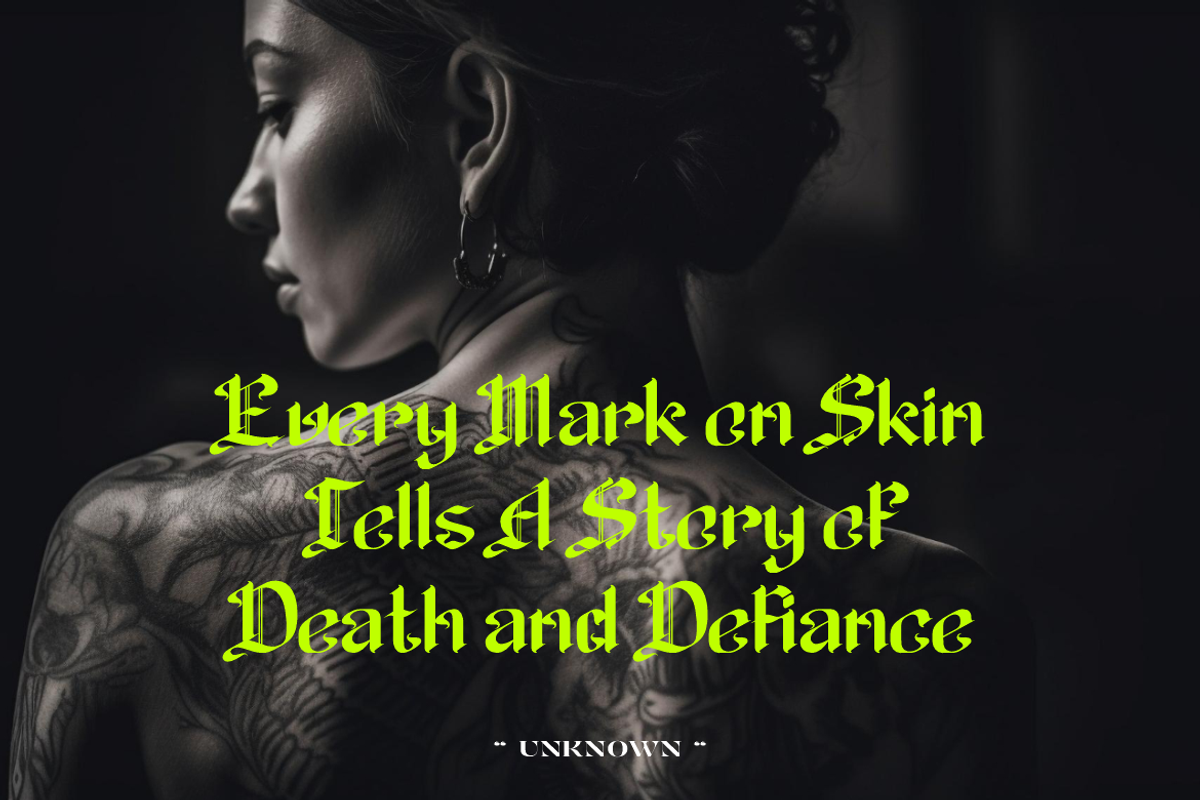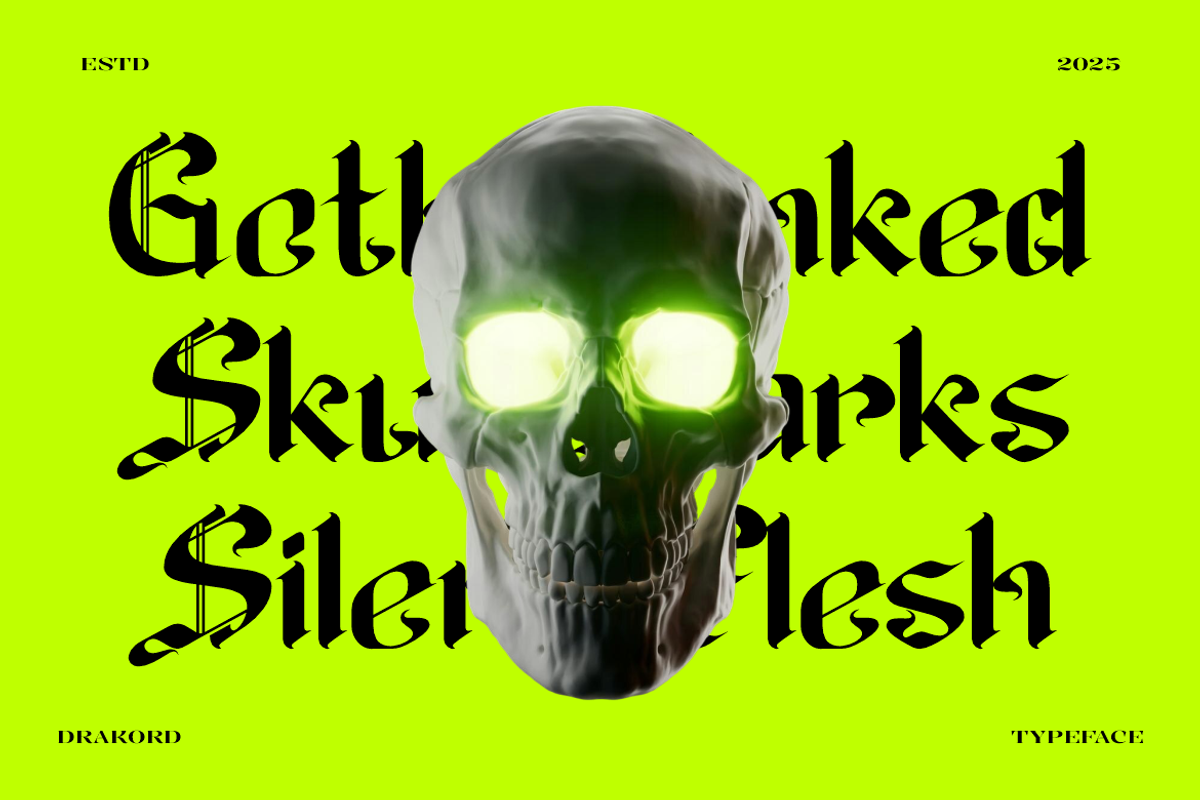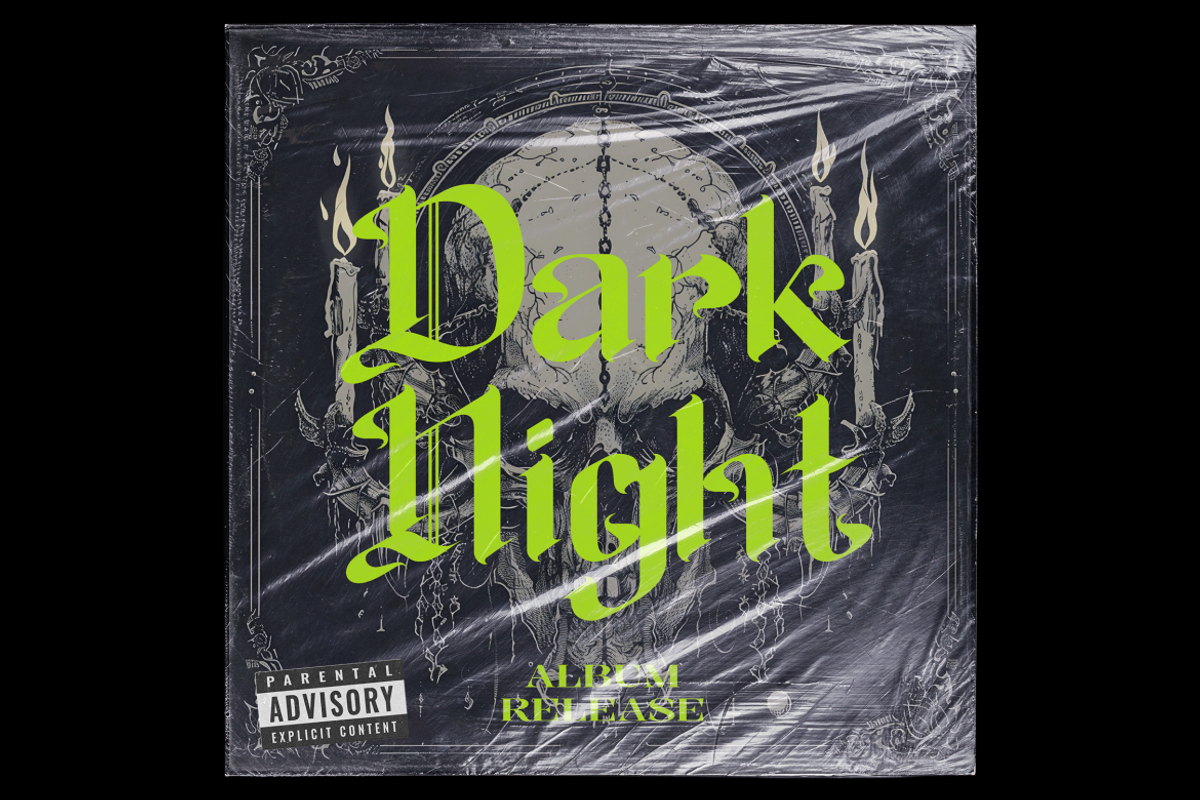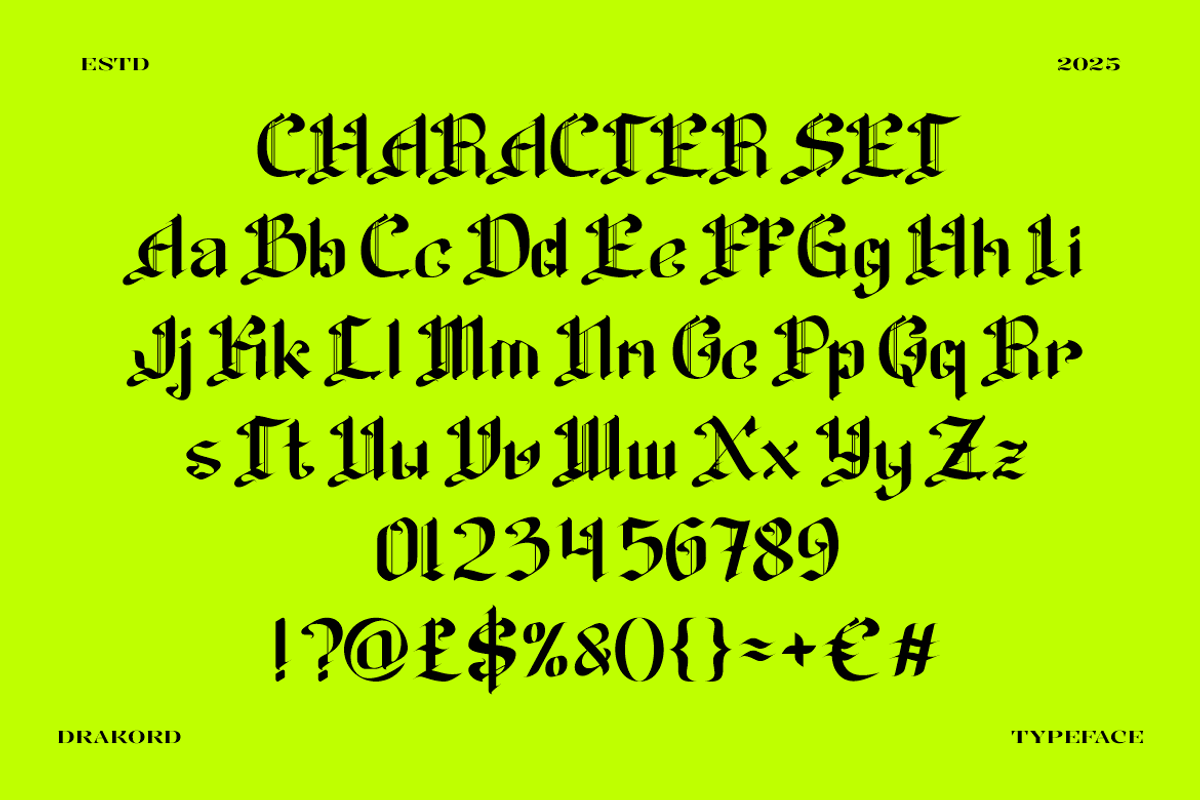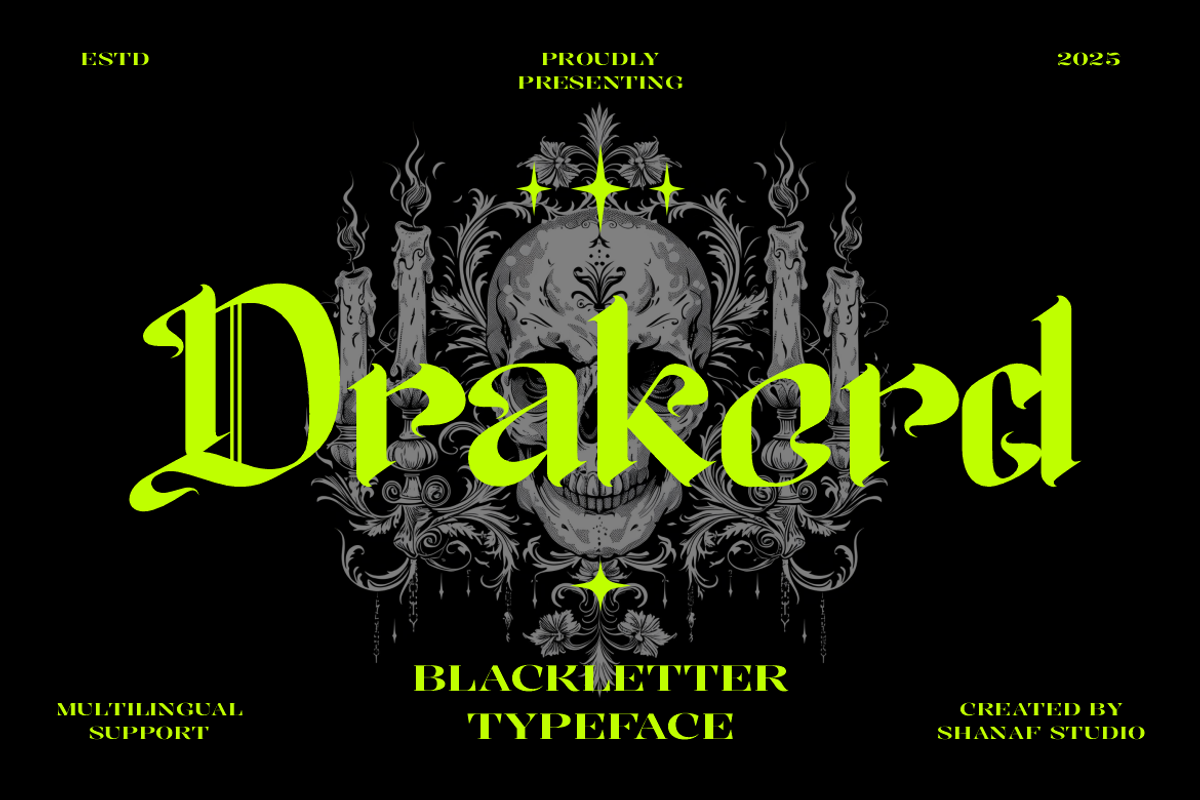
Drakord Blackletter Font
Drakord Blackletter Font is a gothic-inspired typeface that blends classic blackletter forms with a modern, rebellious twist. Each character is sculpted with sharp, high-contrast strokes and daring curves, reminiscent of medieval manuscripts reimagined for the digital age. This font captures the drama and darkness of old-world typography while integrating modern legibility, making it ideal for tattoo art, rock album covers, and horror-themed branding. The neon lime green highlights used in the previews amplify the visual intensity, making the font appear both edgy and electrifying.
The uppercase characters command attention with towering spires and diagonal cuts, while the lowercase set retains balance and rhythm with thoughtful angularity. Perfect for logos, packaging, posters, or even gothic fashion branding, Drakord is optimized to evoke emotion, mystery, and depth. It performs beautifully on dark and vibrant backgrounds alike, thanks to its bold weight and unique negative space. Whether for cinematic posters, band merchandise, or editorial spreads, this font delivers unapologetic impact and cultural attitude.